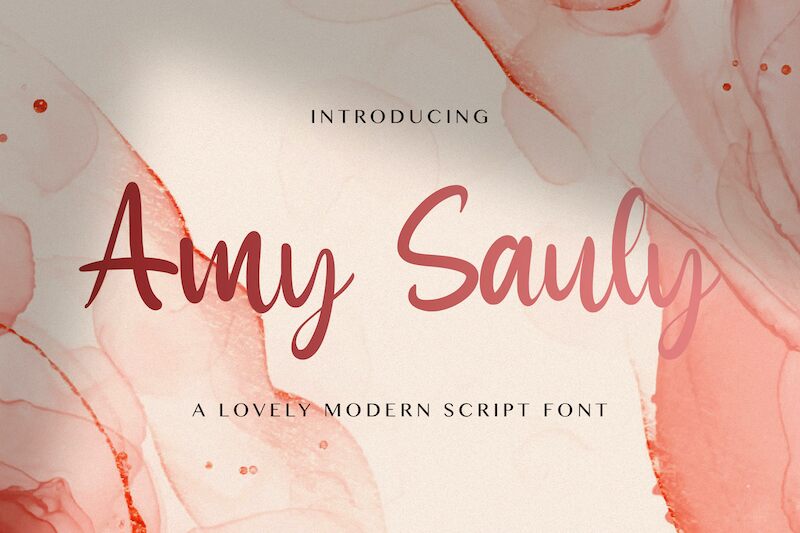
Amy Sauly
Amy Sauly, a light, lovely modern script designed by Virgiawan Listanto, is the perfect choice for any project requiring an elegant yet contemporary look. From wedding invitations and greeting cards to logos and branding, Amy Sauly is sure to make a statement.